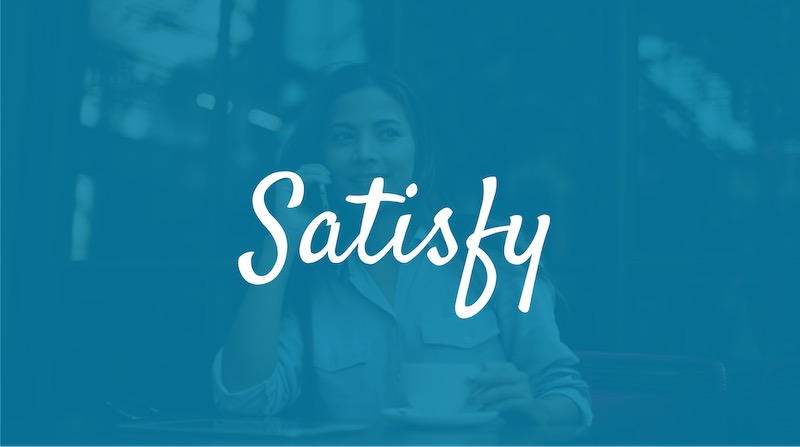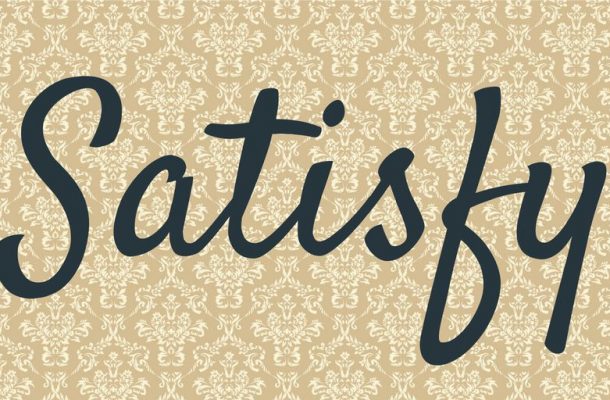
Satisfy Font
Satisfy Font is available here in the  TTF file format. This is famous for its bold and italic function and it is similar to the great vibes font. It’s a few precise extra wild teen font. Collectively with every day, mild, and bold alternatives, it is the fantastic preference for a completely particular report look.